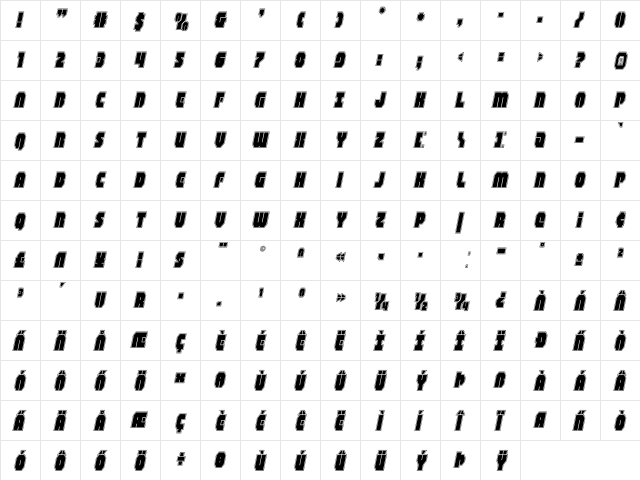
Shogunate Academy Italic Italic
Design Context for Shogunate Academy Italic Typeface
Shogunate Academy Italic is a composed and adaptable typeface that performs quietly and consistently across a wide range of design contexts. The slanted form adds forward momentum and visual energy.
Pro Tip: Try Shogunate Academy Italic for annotation and caption copy alongside an upright companion — the contrast in angle creates a dynamic but ordered typographic system.